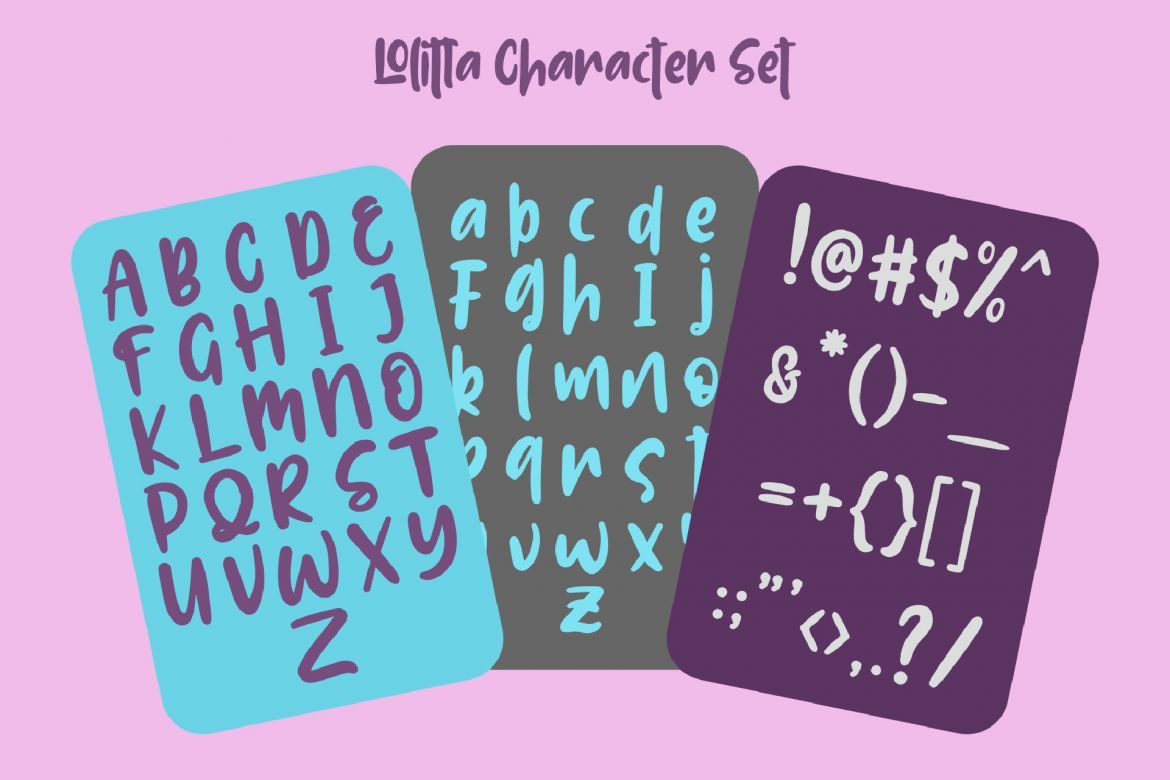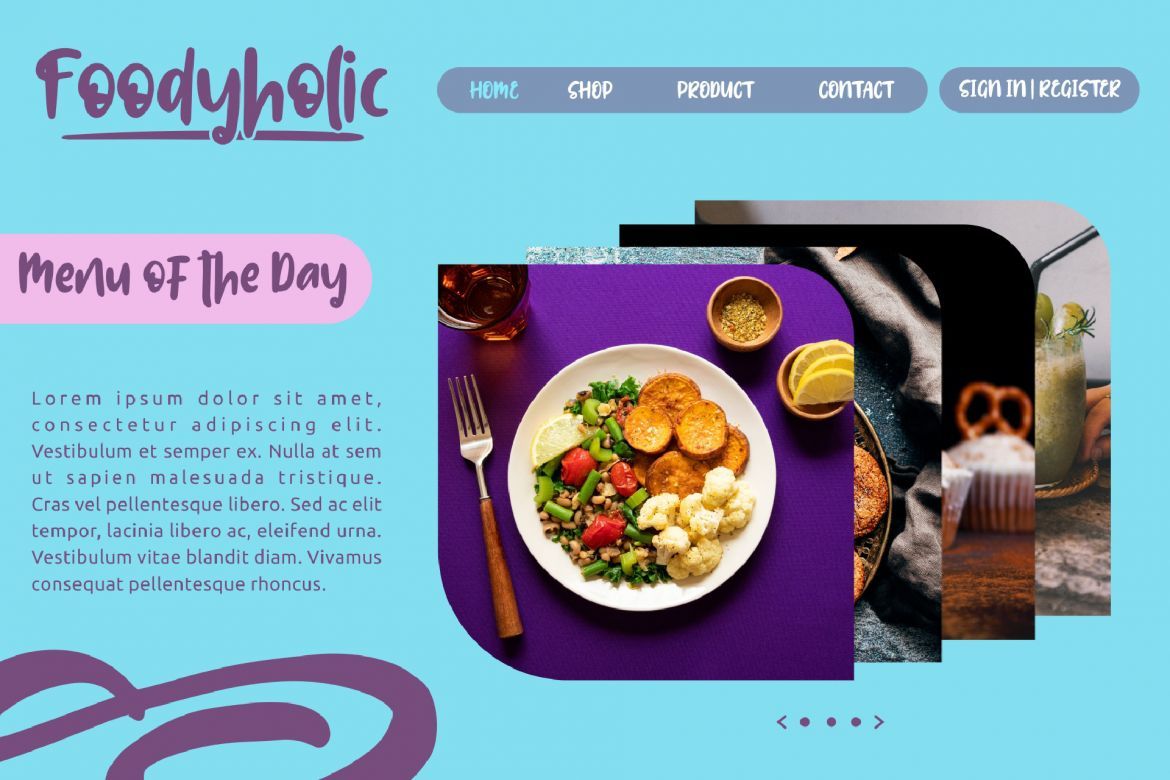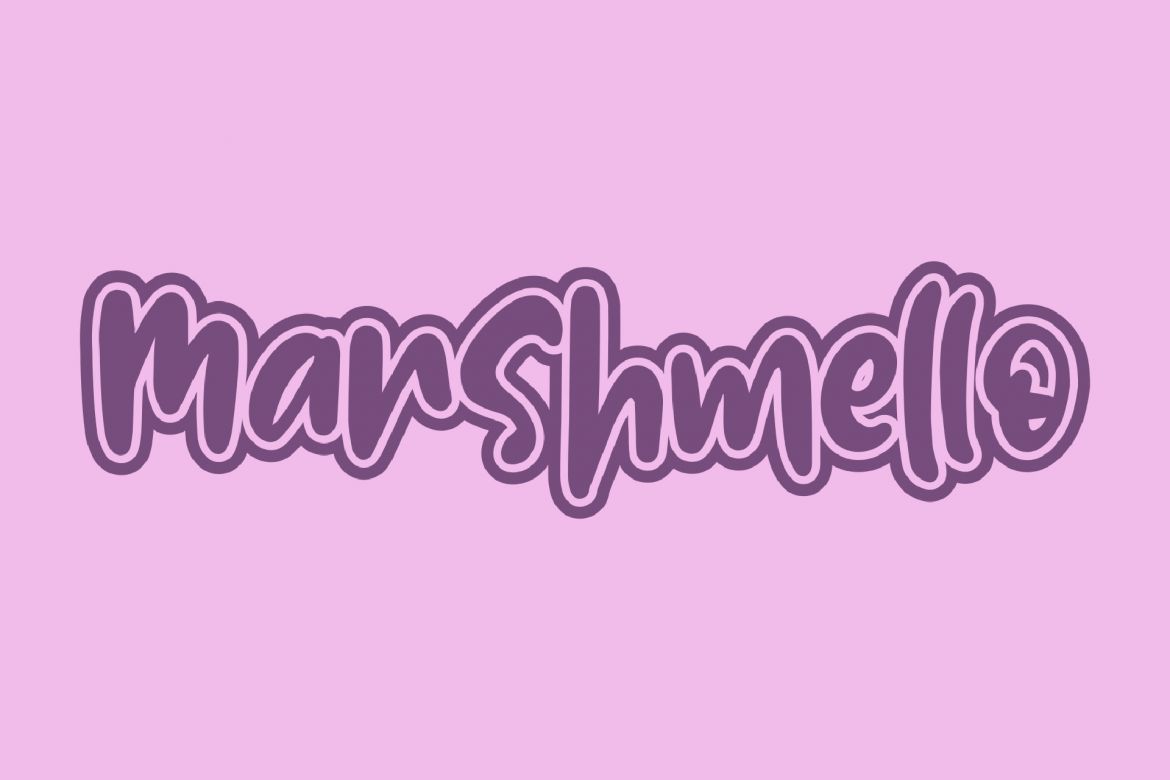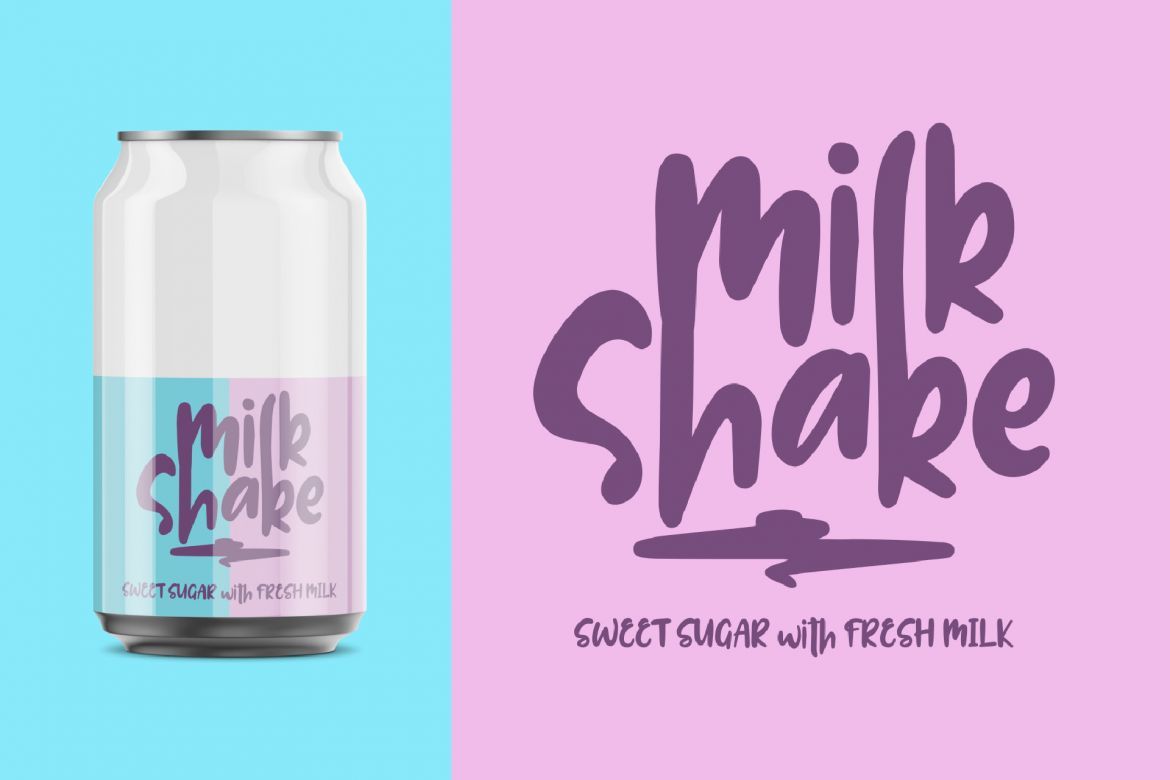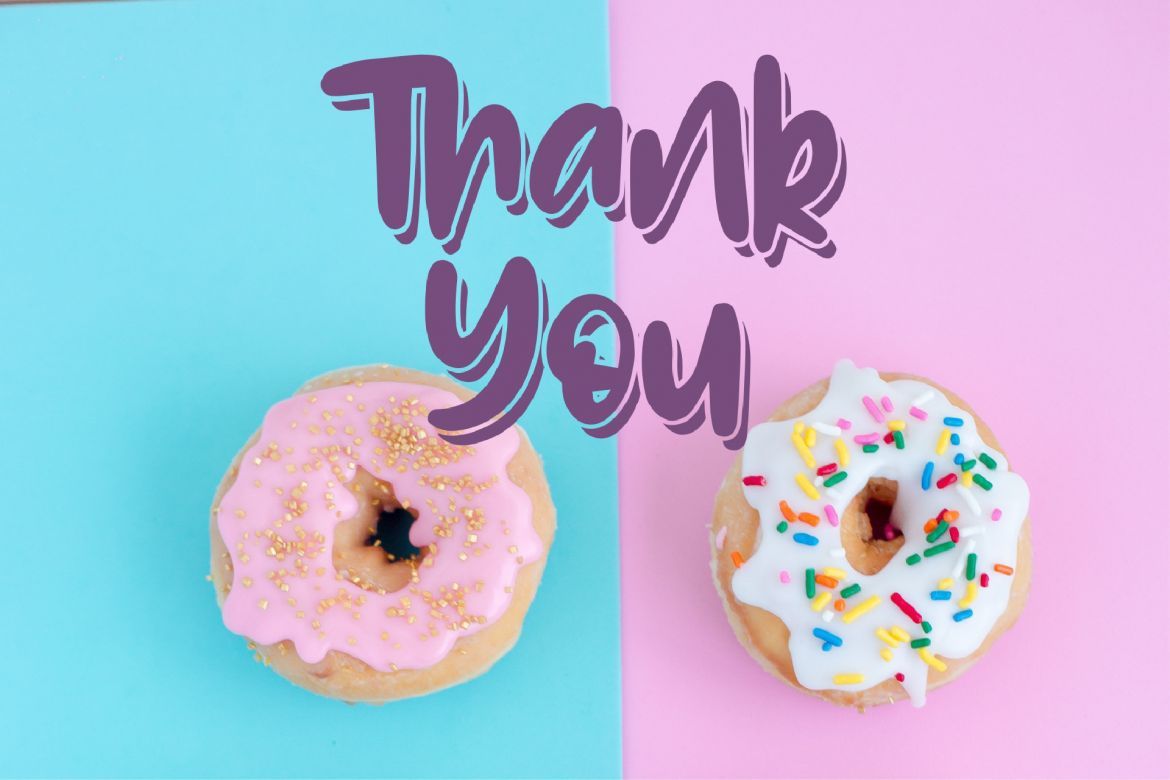
Lolitta - Cute Fonts
LOLITTA is bold and fun display font. It brings joyful and happiness to all of us. Inspired by bold and fun marker with bold and strong style. This font is ideal for display, text, print, branding, signage, with a set of optimal characters for your design in any layout
• suitable for poster, branding, labels or logo